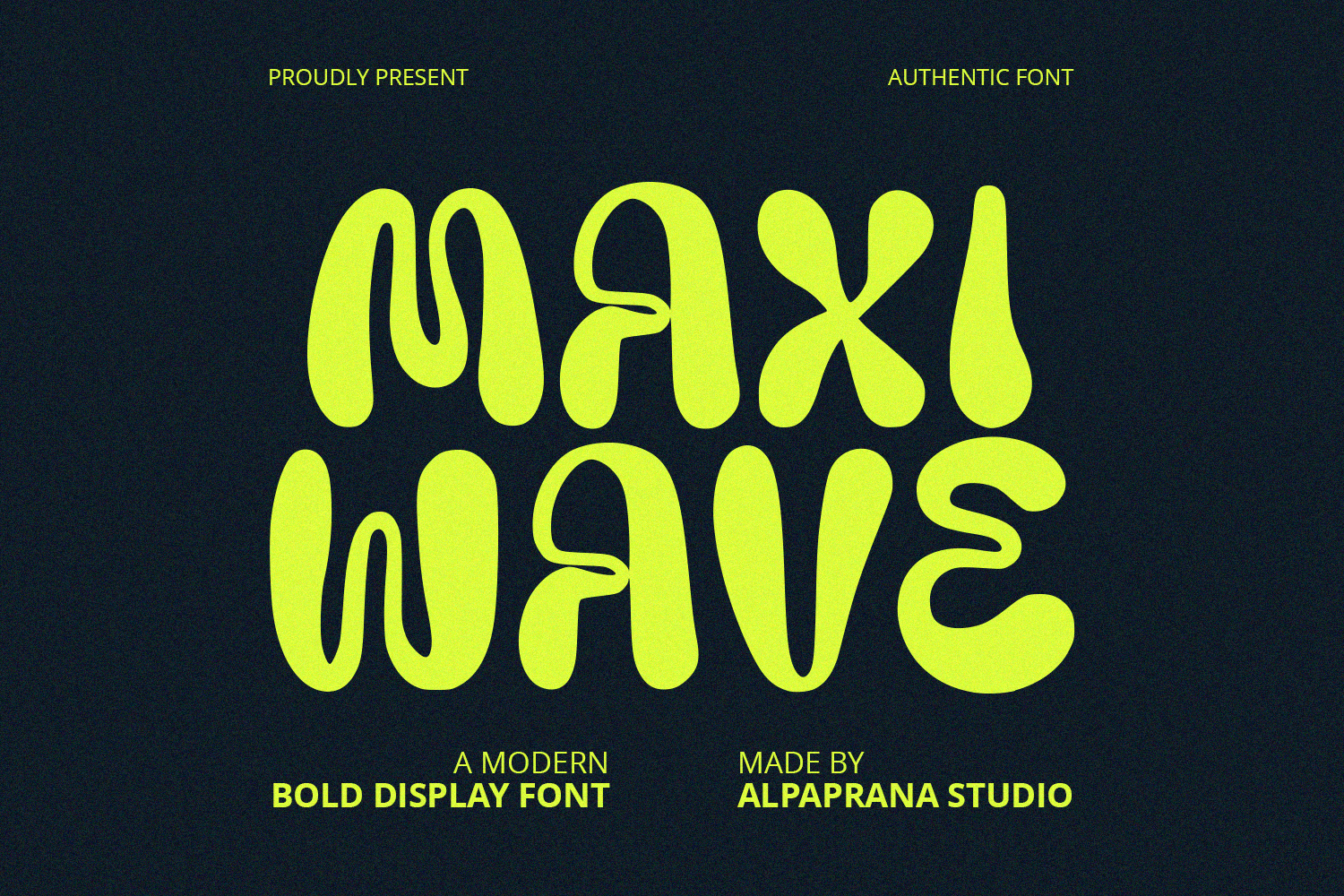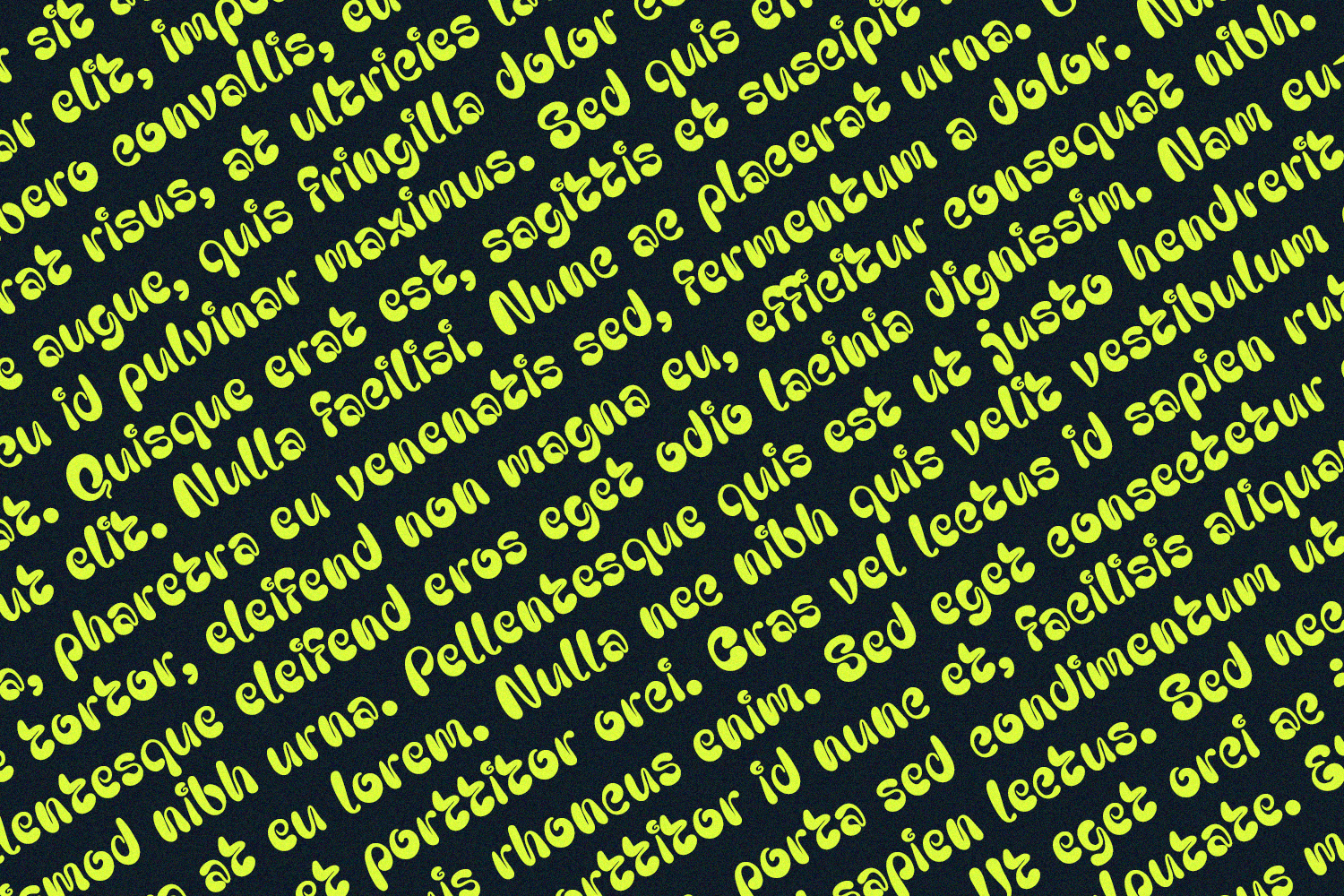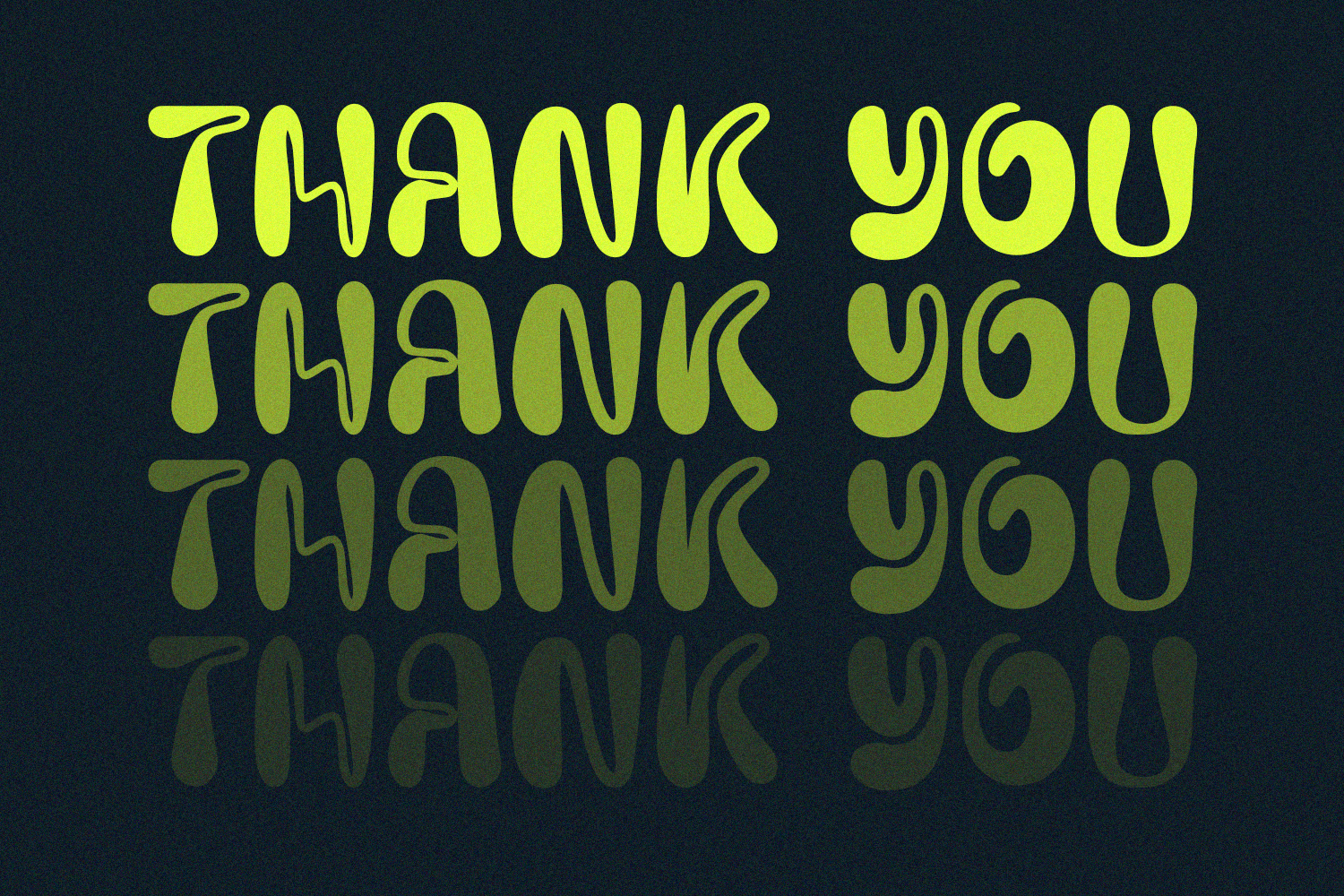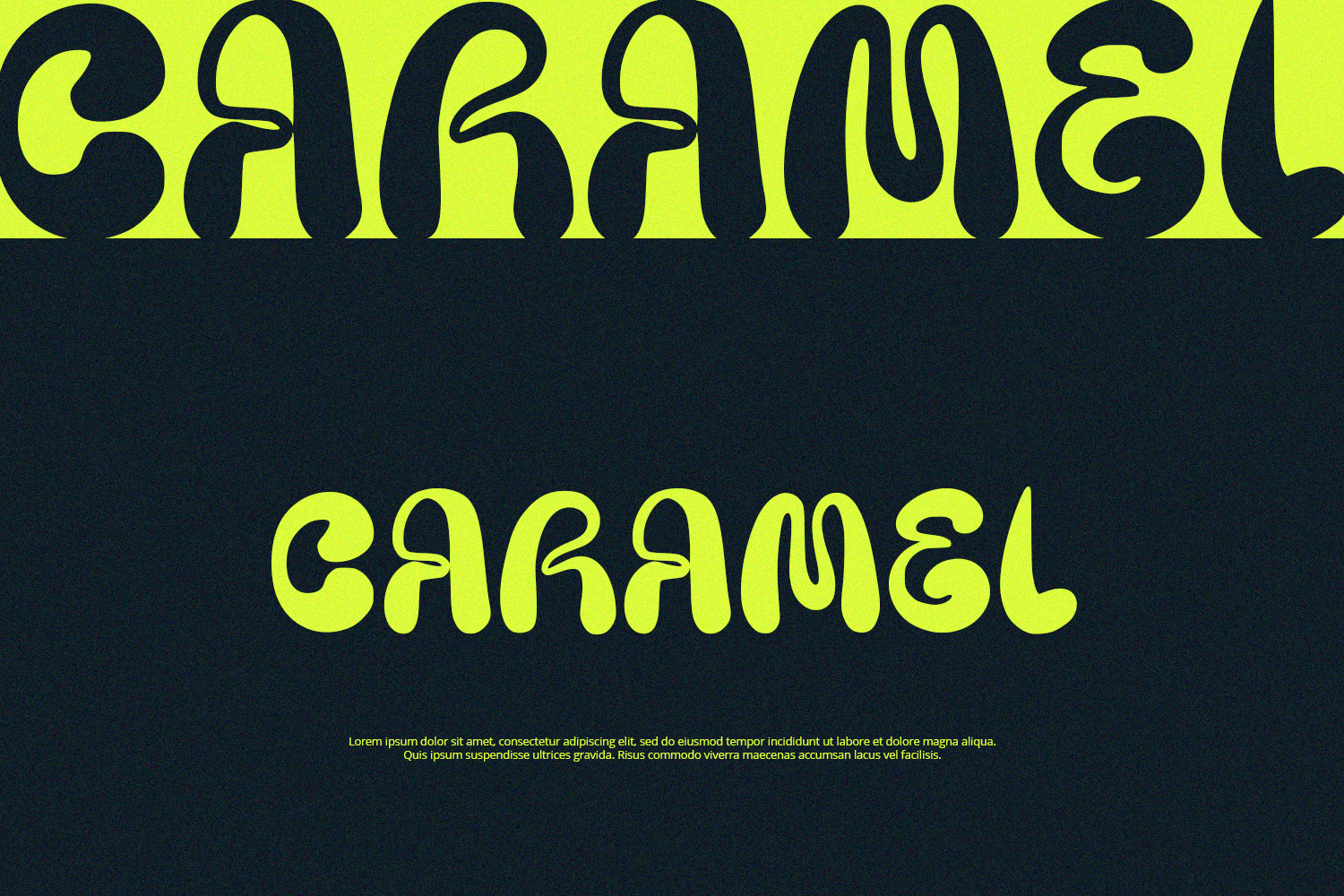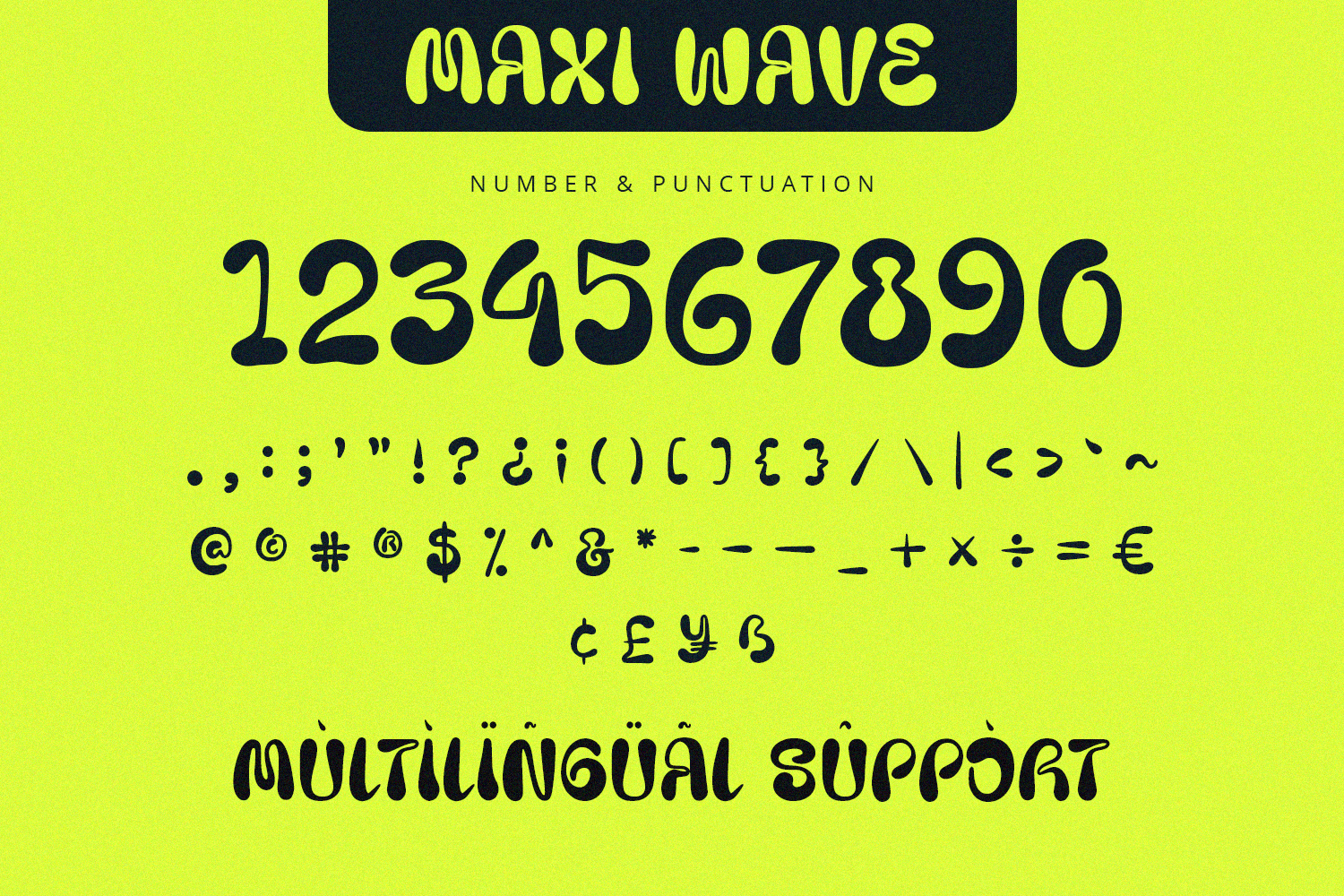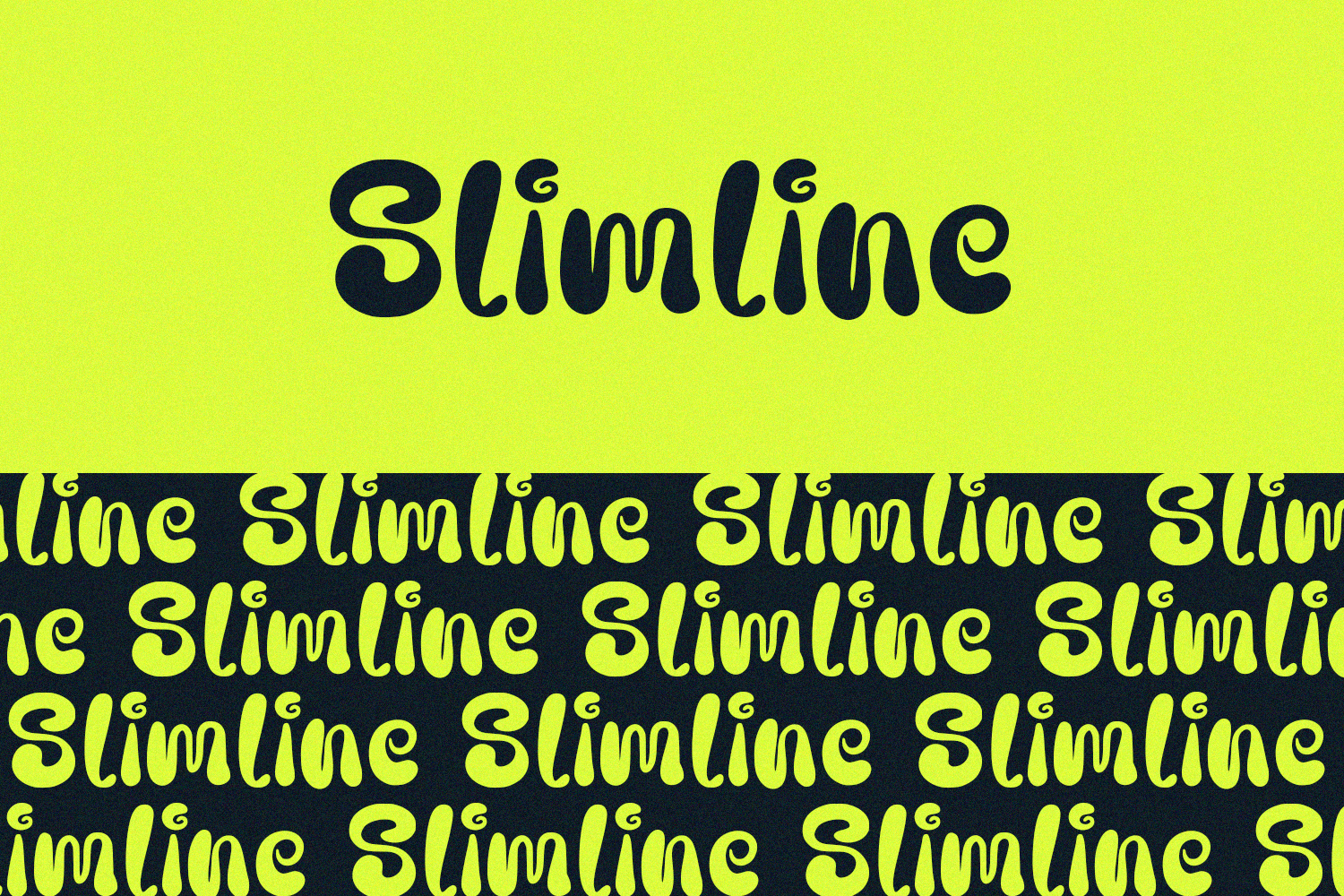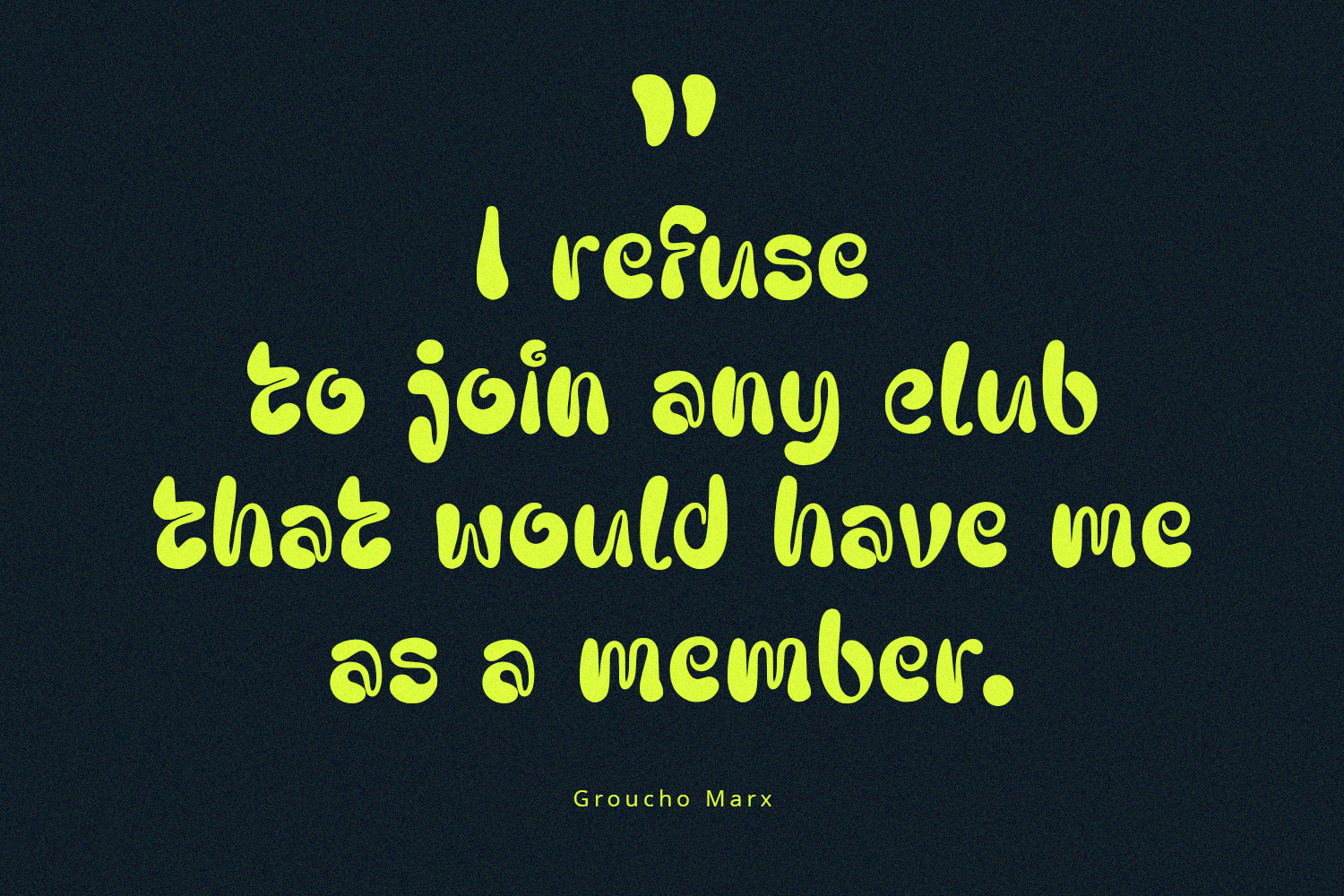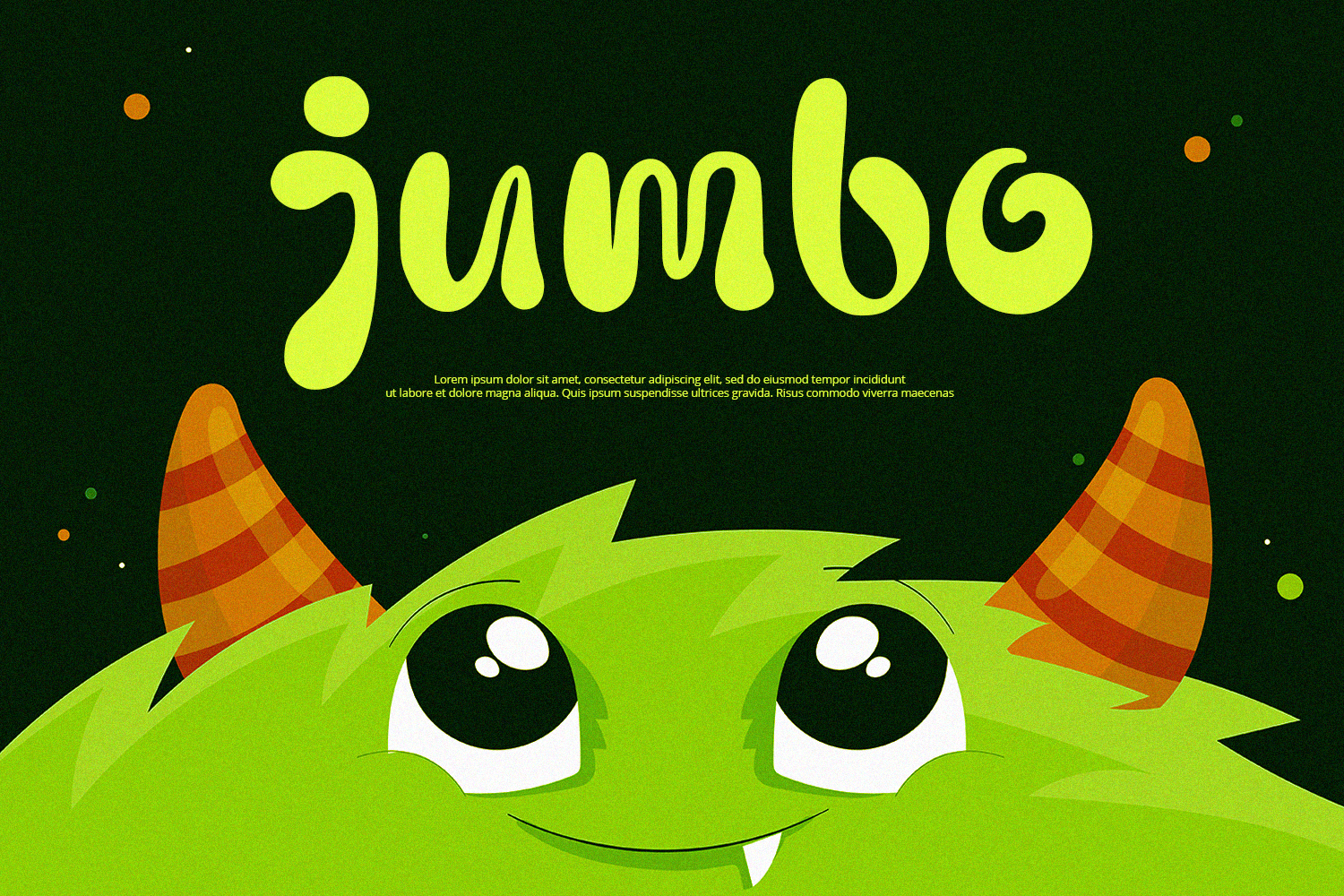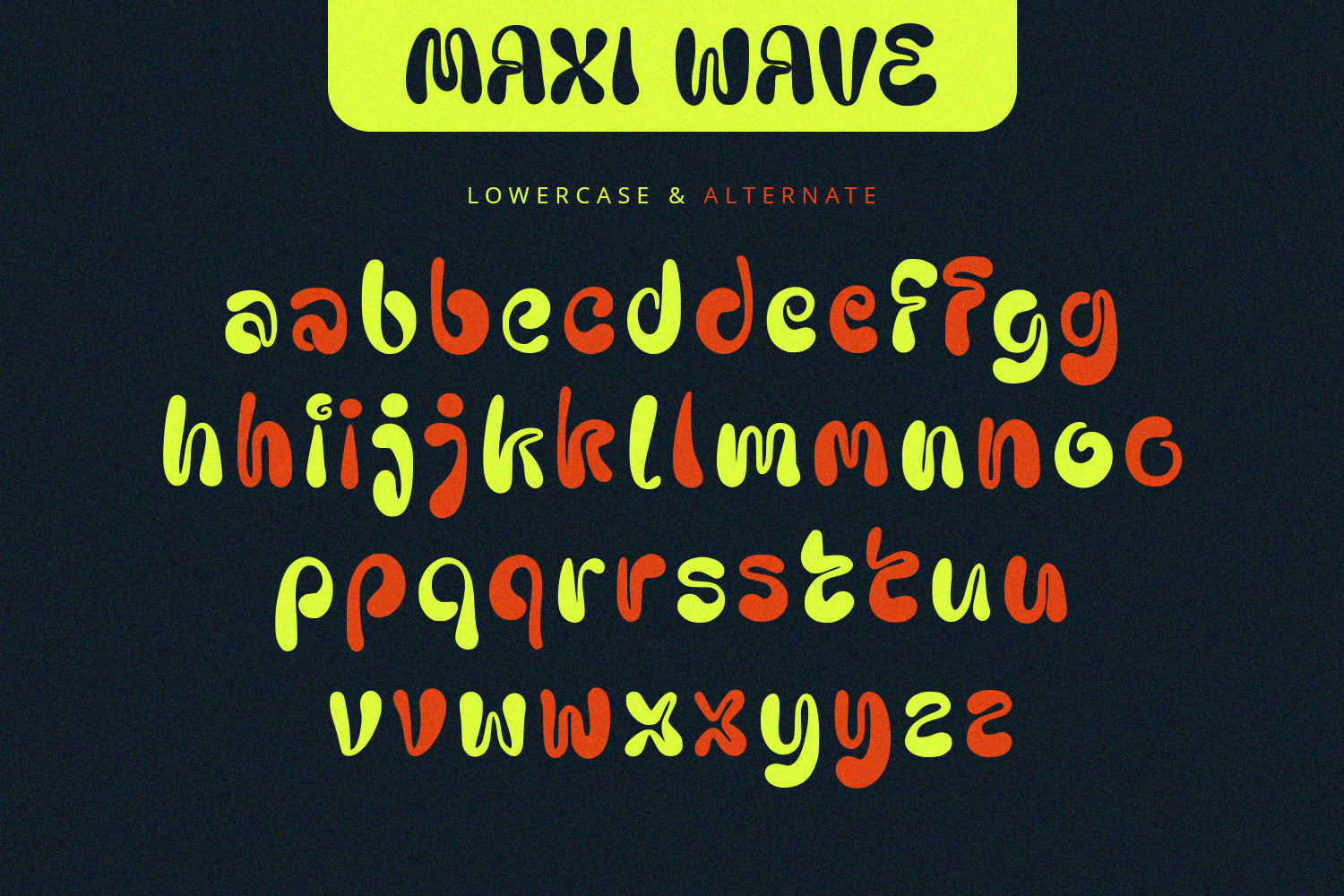
Maxi Wave - Bold Display Font
Maxi Wave is bold display font with cute and playful feels. It will be perfectly used for Branding, Logo Design, Lettering, Logotype, Clothing, Poster, magazine, packaging, posters, shopping bags, t-shirts, book covers, photography, special events and other design project.
- Uppercase & Lowercase
- Numerals
- Punctuations (OpenType Standard)
- Accents (Multilingual Characters)
- Ligatures and Alternative Style Stylistic Set